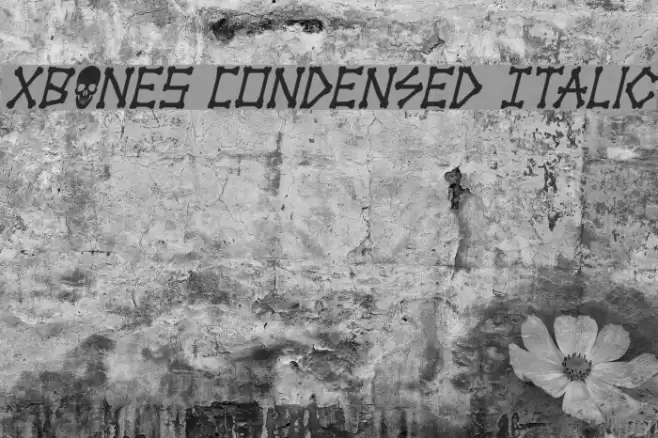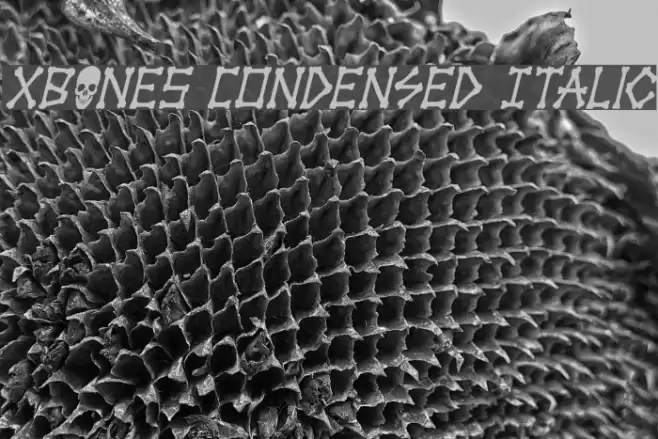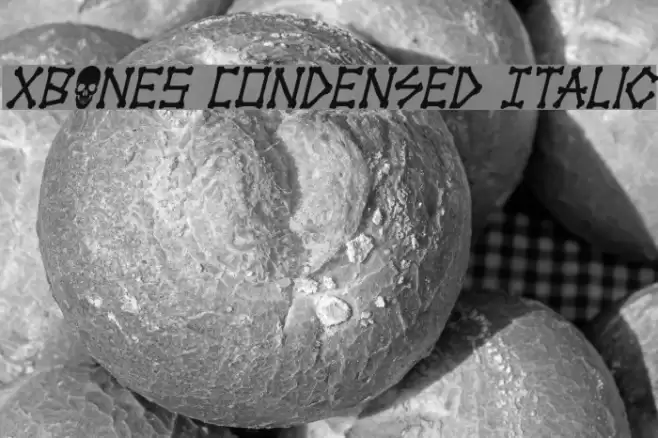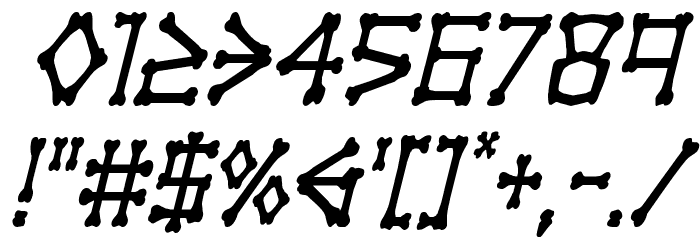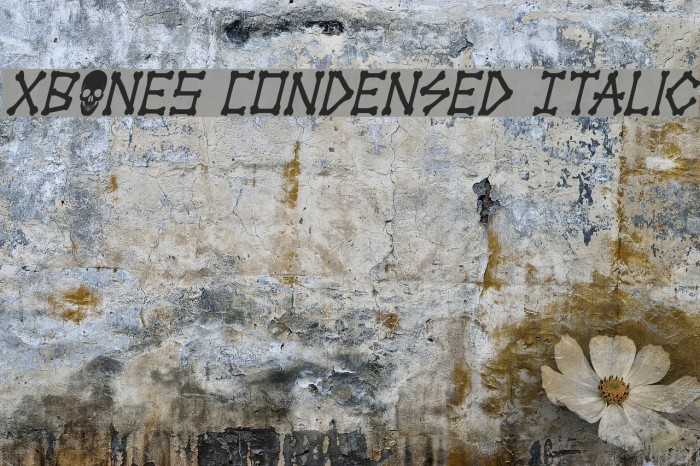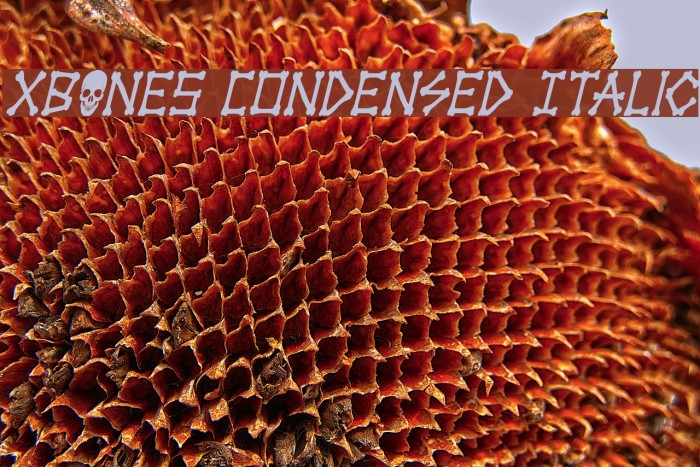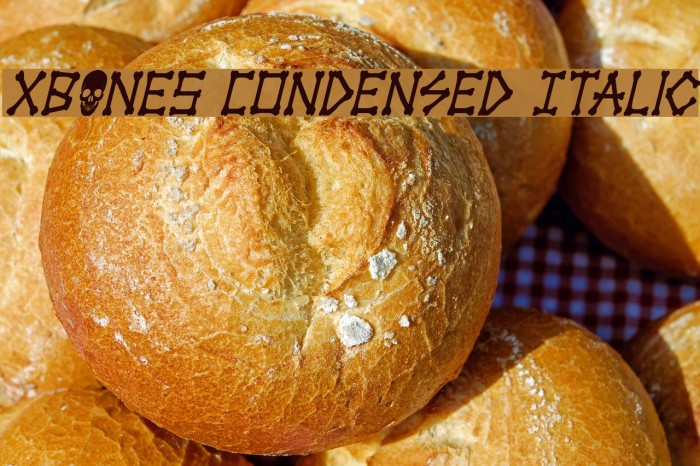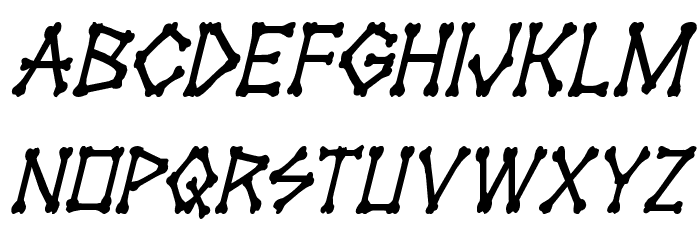
xBONES Condensed Italic Font
xBONES Condensed Italic Description
This font features a unique and playful design, where each character is crafted to resemble bones. The letters have a condensed and italicized style, giving them a dynamic and slightly eerie appearance. The strokes are uneven, mimicking the irregularity of real bones, which adds to the font's distinctive character. The uppercase and lowercase letters maintain this skeletal theme consistently, while the numbers and special characters are designed to match. This font is perfect for projects that require a spooky or Halloween-themed aesthetic, as it captures a sense of mystery and playfulness.
A bone-themed, condensed italic font with a playful, spooky style from Uncategorized fonts.
- Proposed Projects: Ideal for Halloween invitations, themed posters, horror movie titles, or any project requiring a spooky, playful touch.
- Use Case: Headlines, Logos, Themed Events